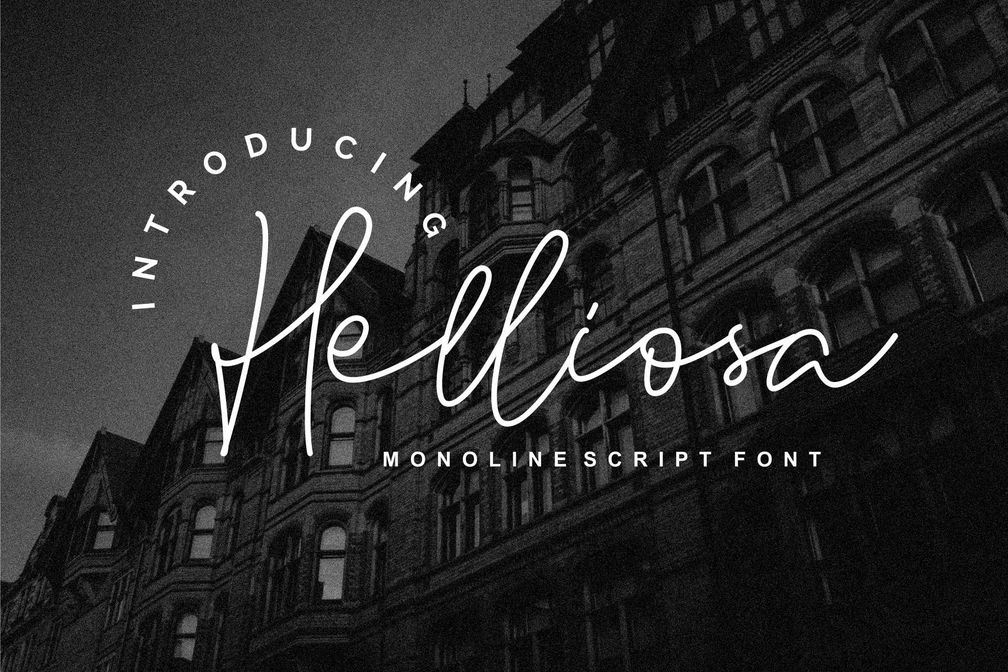
Heliosa
Heliosa is monoline script font, where this font is perfect for a logo on your brand, and can be a title on an online store, caption quote or other design needs that require a touch of the script.